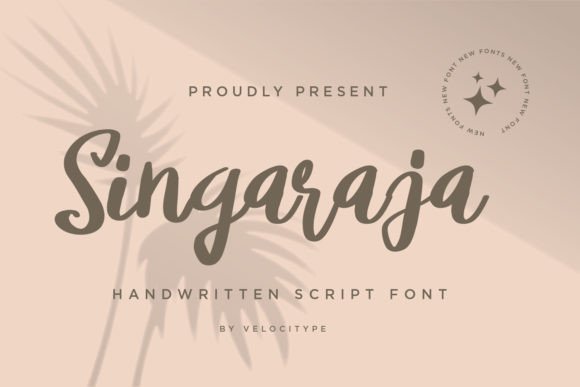
Unleash the allure of Singaraja, an enchanting handwritten font that captivates with its graceful strokes and timeless beauty. Gaze upon its fluid lines, each crafted with meticulous care, weaving an ethereal tapestry of elegance and sophistication. This modern masterpiece is a symphony of art and function, blending aesthetics with practicality.
Indulge in the versatility of Singaraja, a font that adapts effortlessly to a myriad of creative endeavors. Its delicate curves and sweeping lines lend an air of grace to wedding invitations, transforming them into exquisite keepsakes that reflect the profound emotions of your special day. Elevate your branding with a touch of refinement, allowing Singaraja's allure to captivate your audience. Let your designs radiate a charm that lingers in the minds of all who behold them.
Step into the world of Singaraja, where your creativity takes center stage. Whether crafting logos, websites, or marketing materials, this font becomes your artistic muse. Its clean lines and effortless readability ensure that your message shines through, leaving an indelible mark on the hearts of your clientele. The magic of Singaraja lies in its PUA encoding, granting you access to a treasure trove of glyphs and swashes. Unleash your imagination and weave intricate designs that dance off the screen, captivating all who lay eyes upon them.
With Singaraja as your creative companion, transcend the boundaries of ordinary and embrace the realm of extraordinary. Immerse yourself in a boundless universe of artistic expression, where beauty and functionality harmoniously coexist. Let Singaraja be your guiding light, illuminating your path to design greatness. Discover the endless possibilities that await, and embark on a creative journey that will leave you spellbound.